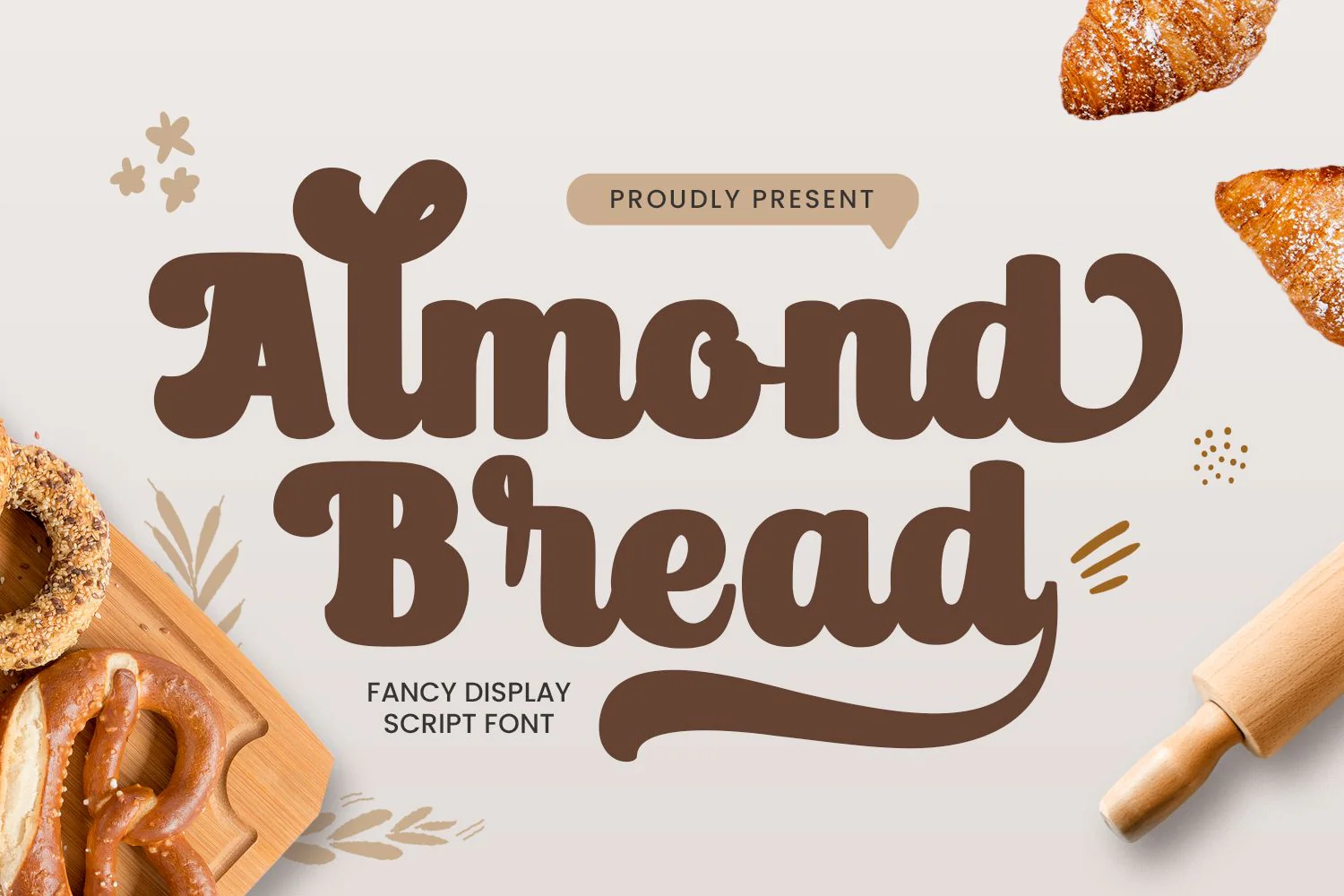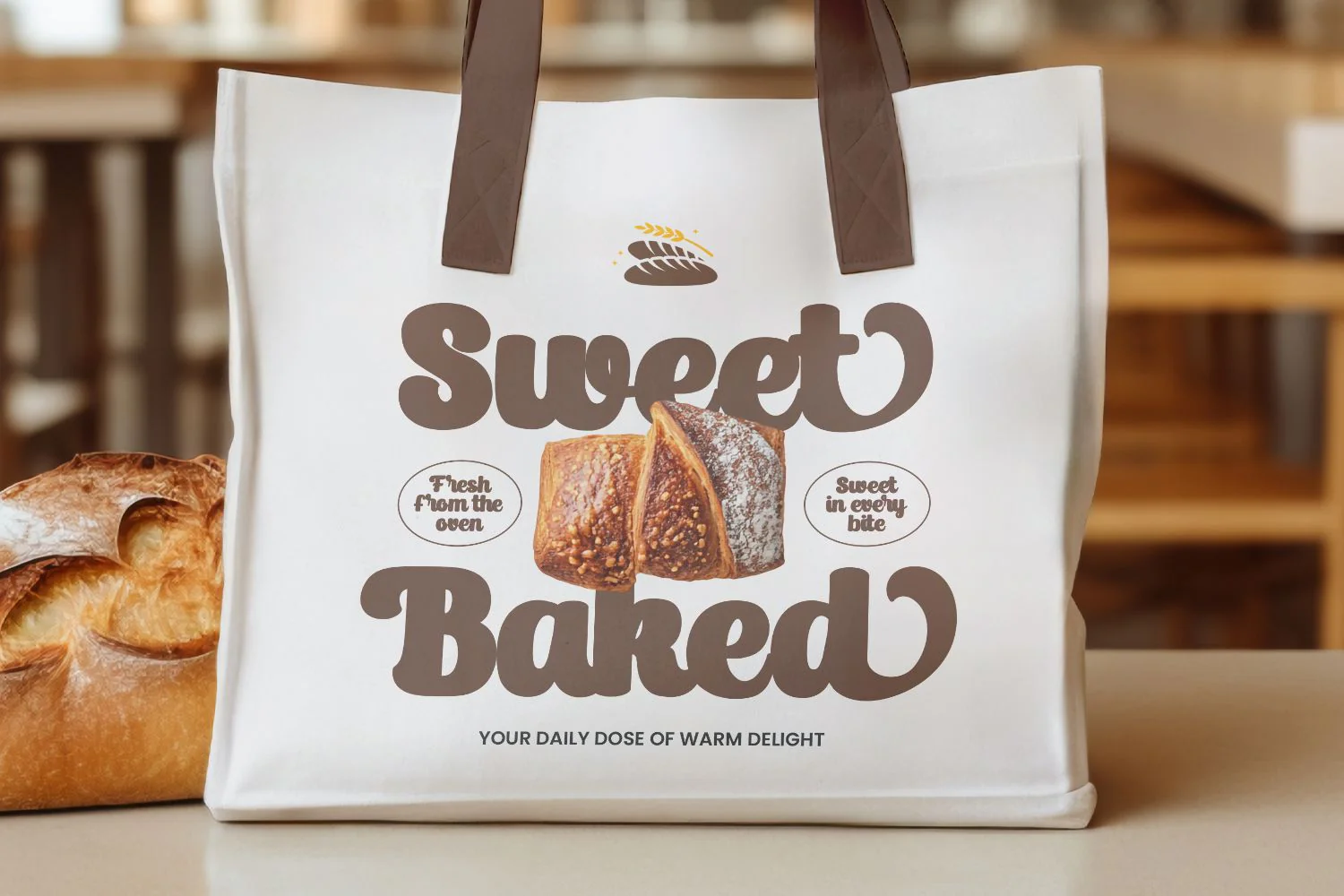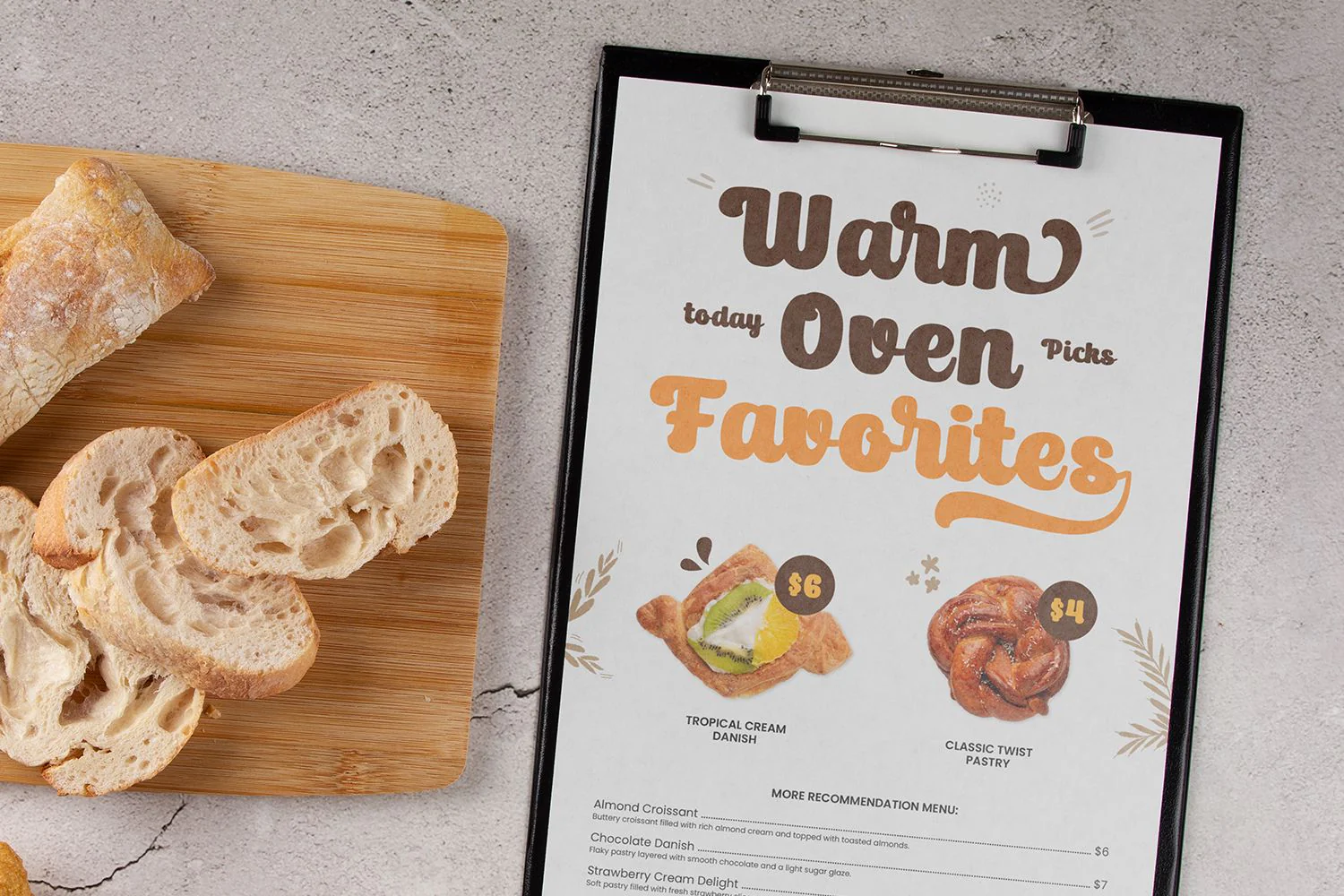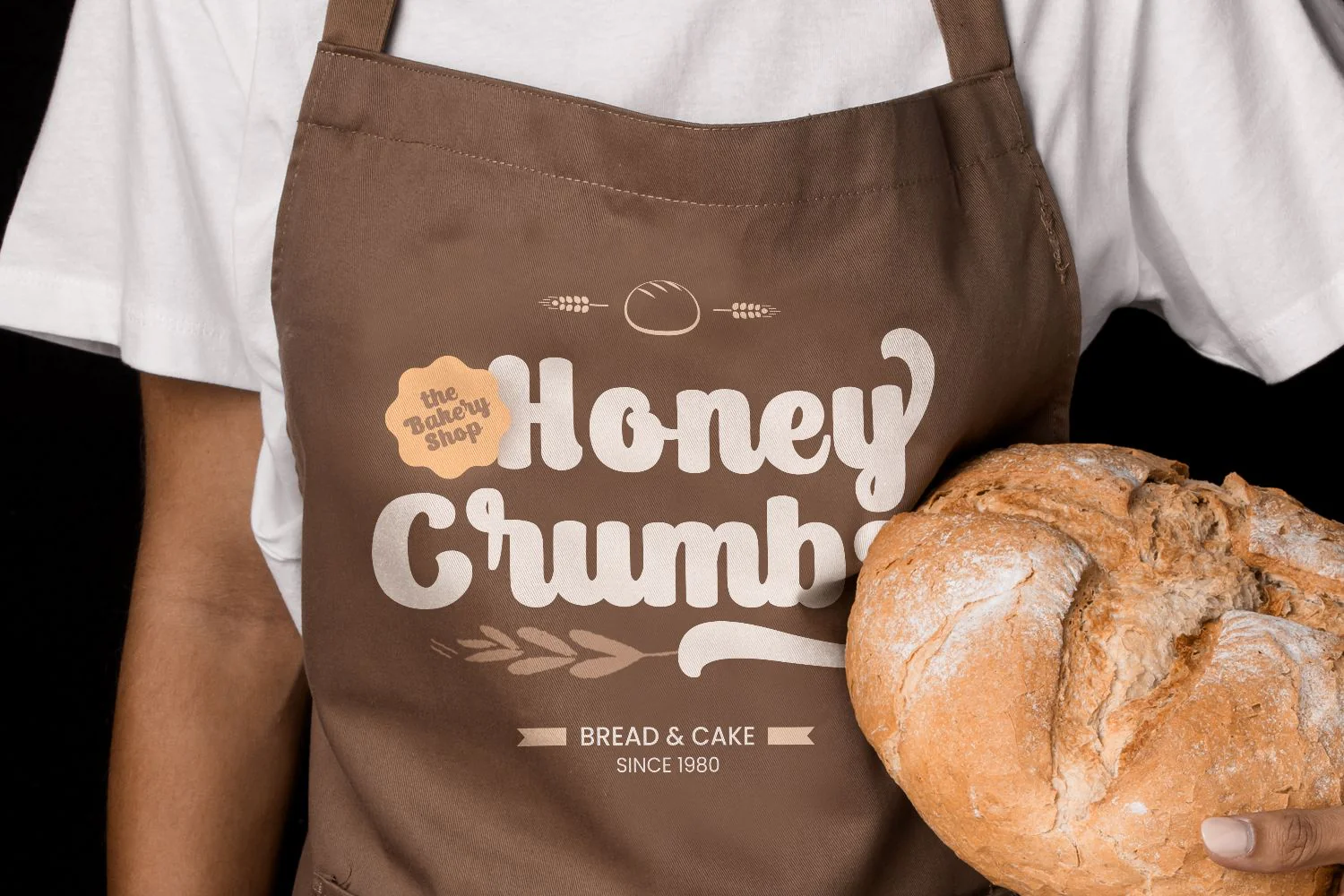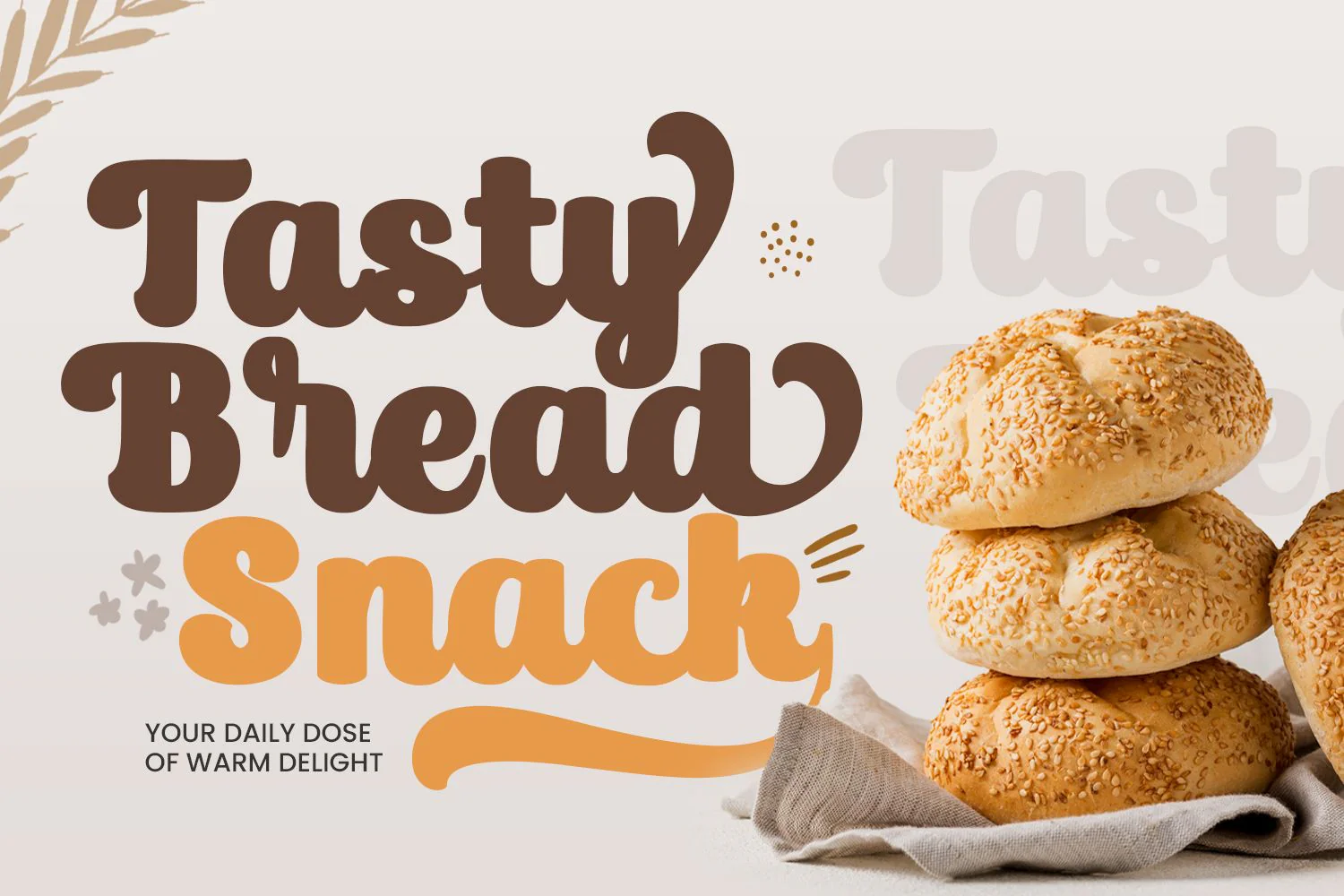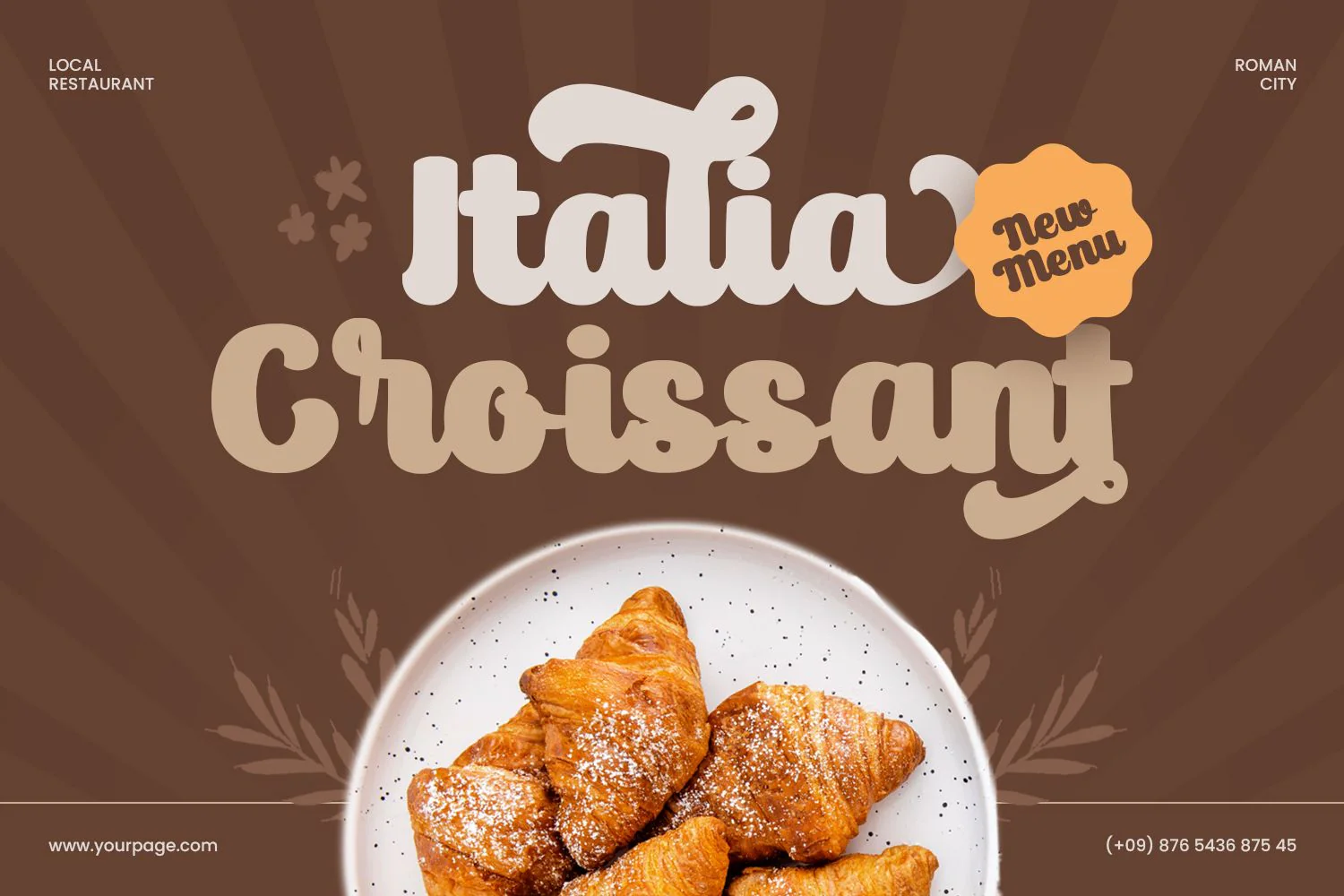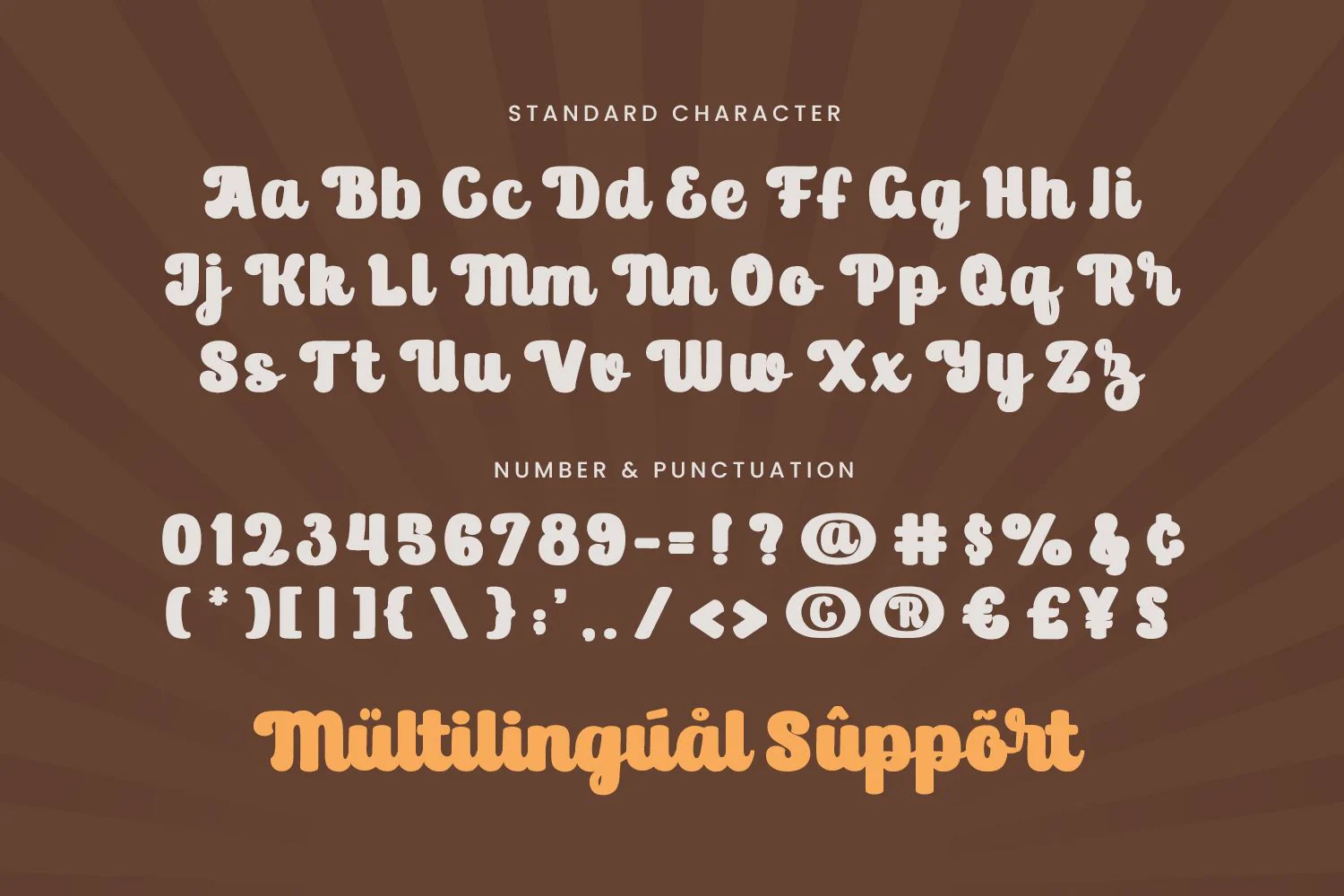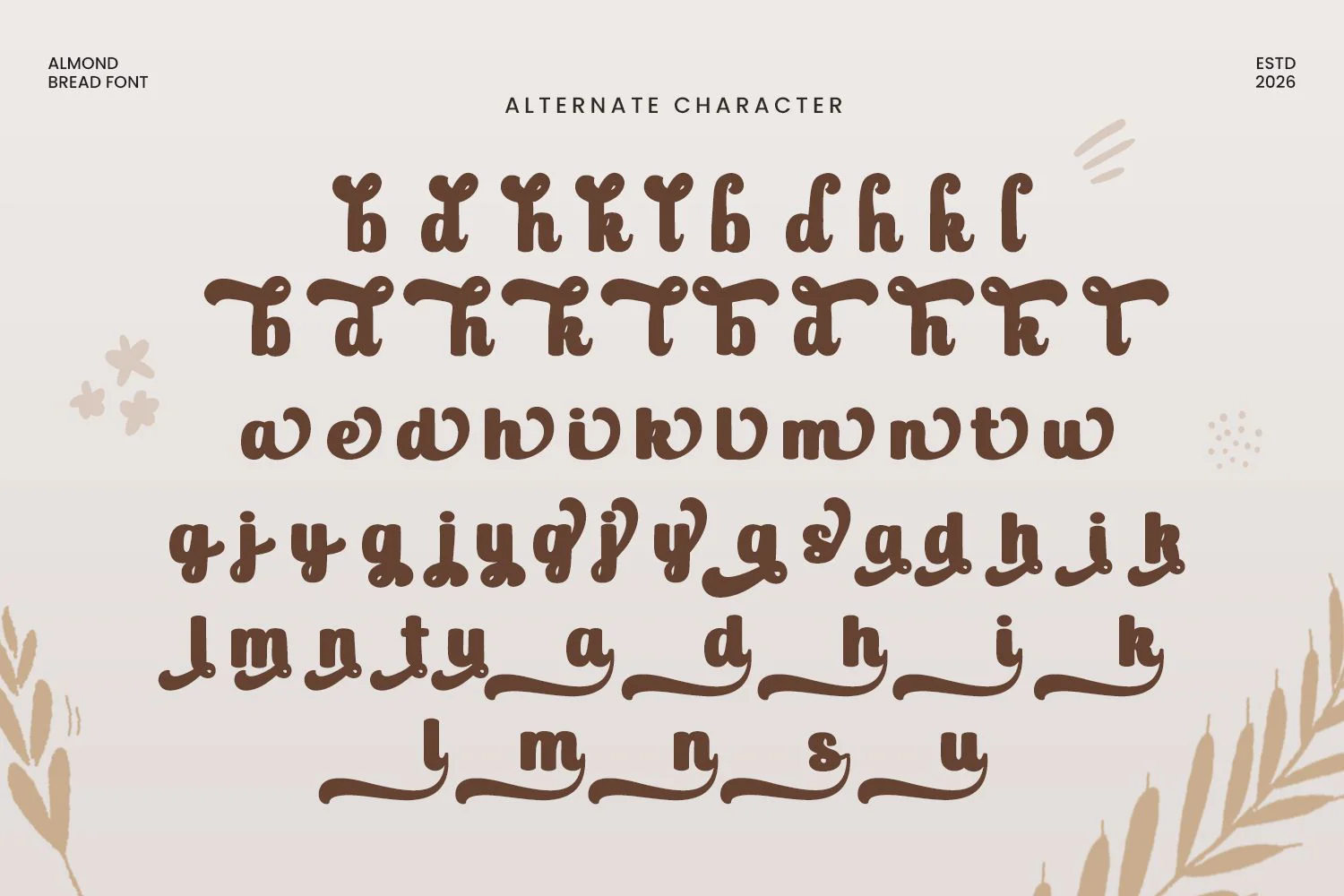
Almond Bread - Bold Script Font
Almond Bread is a bold script font that blends sweetness and strength in a charming handwritten style. Its smooth curves and thick strokes create a warm and inviting look, making every word feel expressive and full of personality. The flowing letterforms give designs a natural rhythm that feels both playful and elegant.
Inspired by cozy bakery aesthetics and rustic farmhouse charm, this font carries a delightful handcrafted feel. The bold structure ensures strong readability while maintaining the soft, friendly character often found in handmade lettering and artisanal branding.
Perfect for a wide range of creative themes, Almond Bread works beautifully for bakery branding, cafƩ menus, packaging, posters, and seasonal designs. It also fits wonderfully with wedding invitations, birthday cards, craft labels, and decorative quotes that require a warm and welcoming visual tone.
Its organic style and smooth connections make it ideal for Cricut projects, SVG designs, embroidery, and various craft creations. Whether used for digital graphics or printed materials, the font adds a cozy, nostalgic atmosphere that enhances any creative concept.